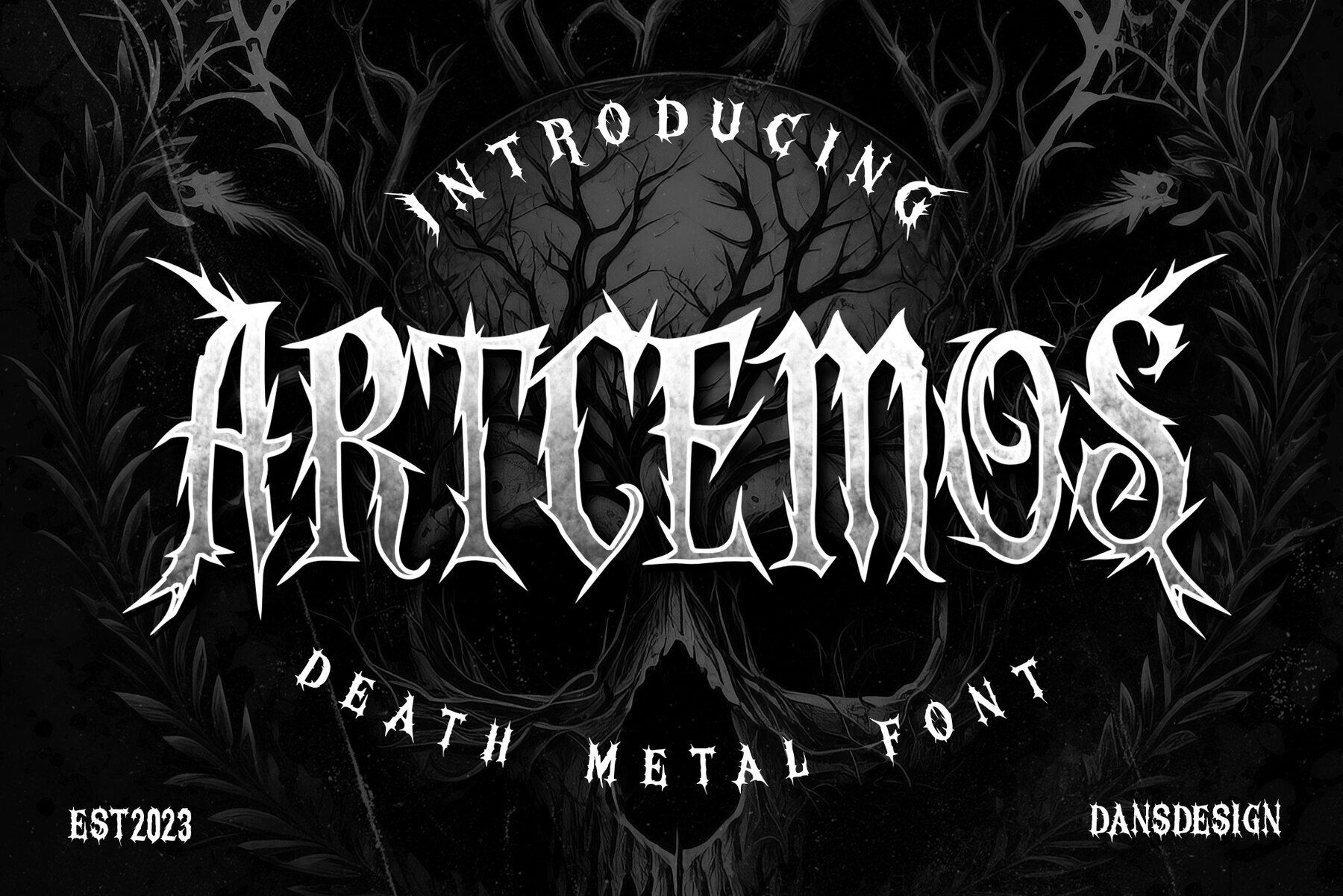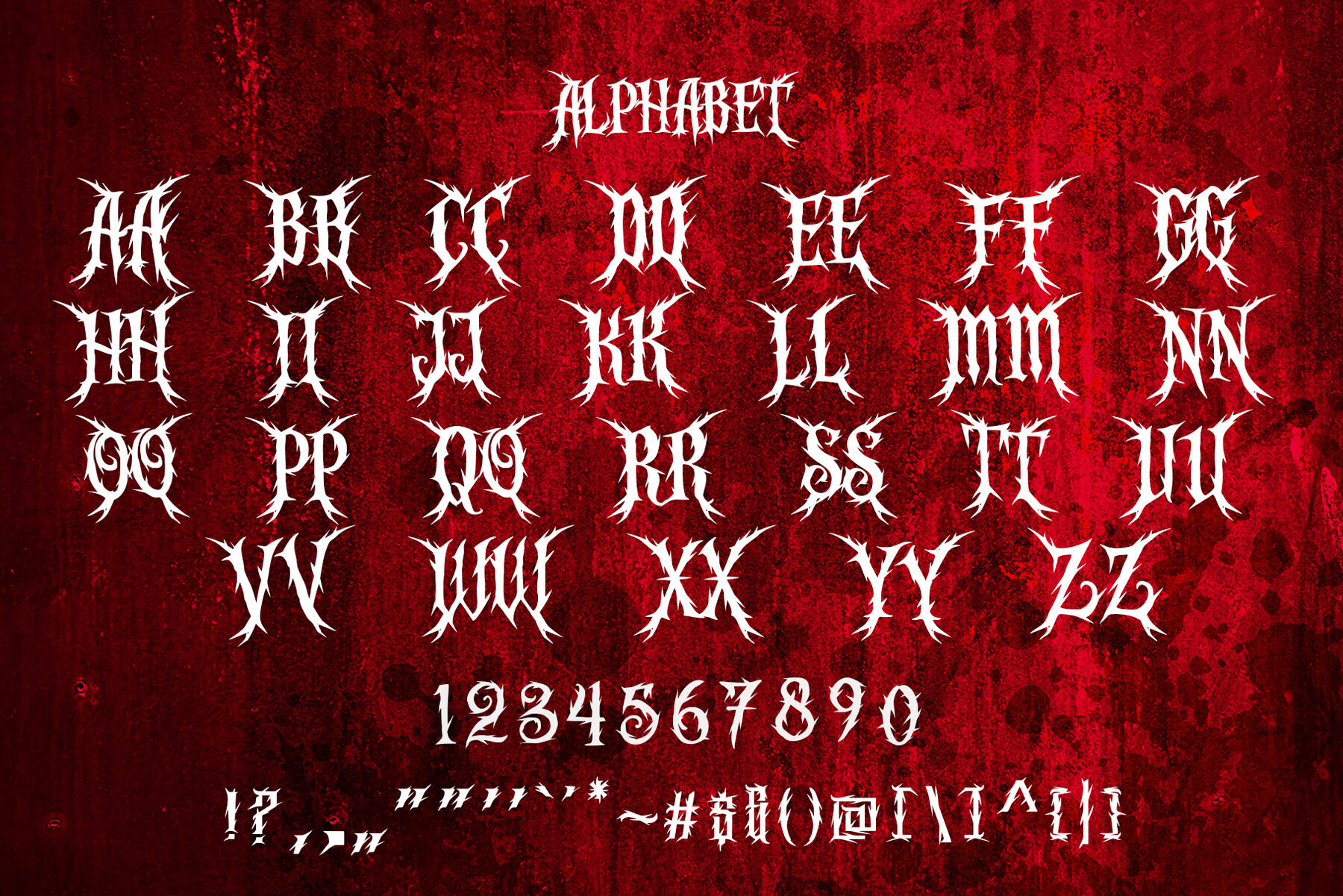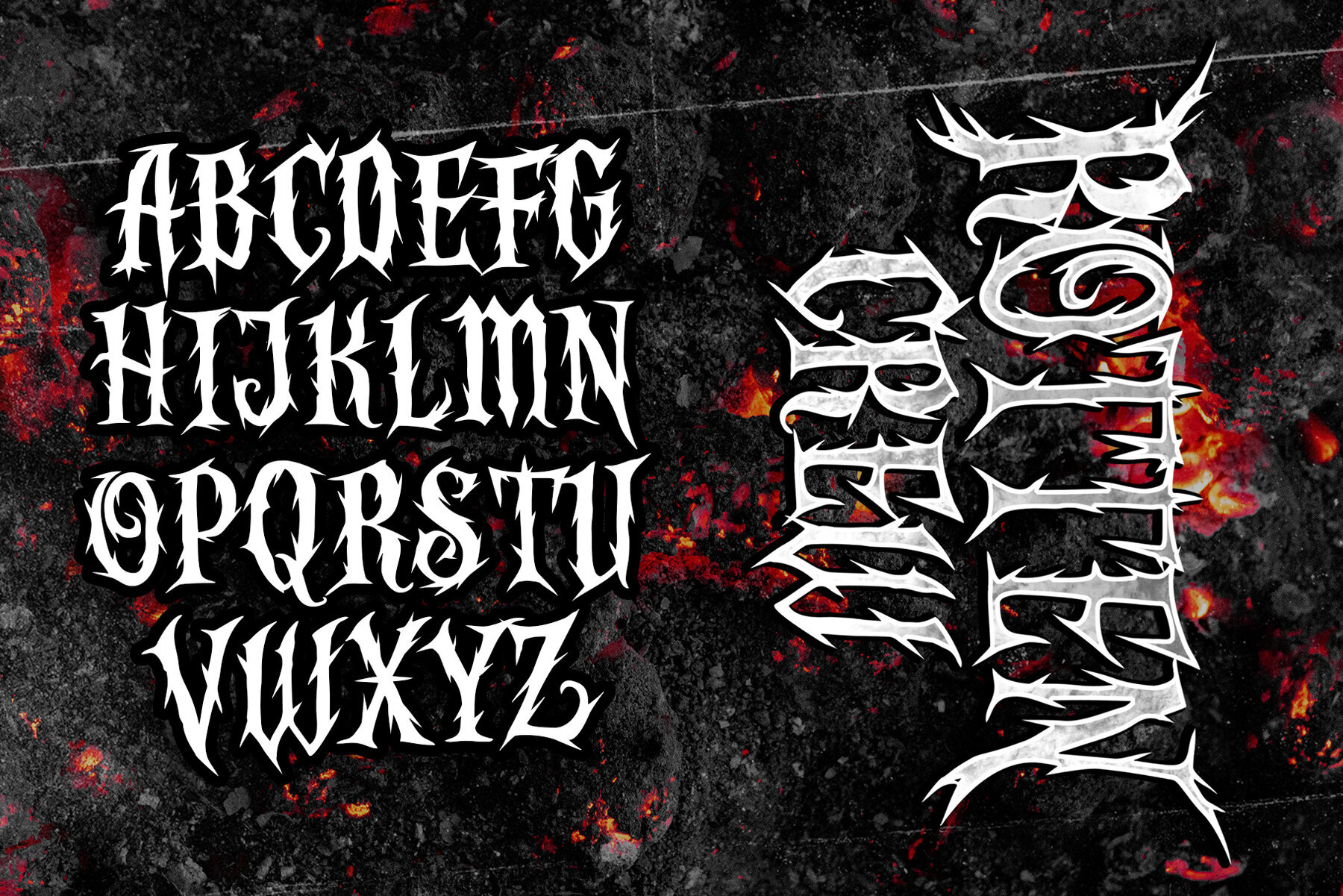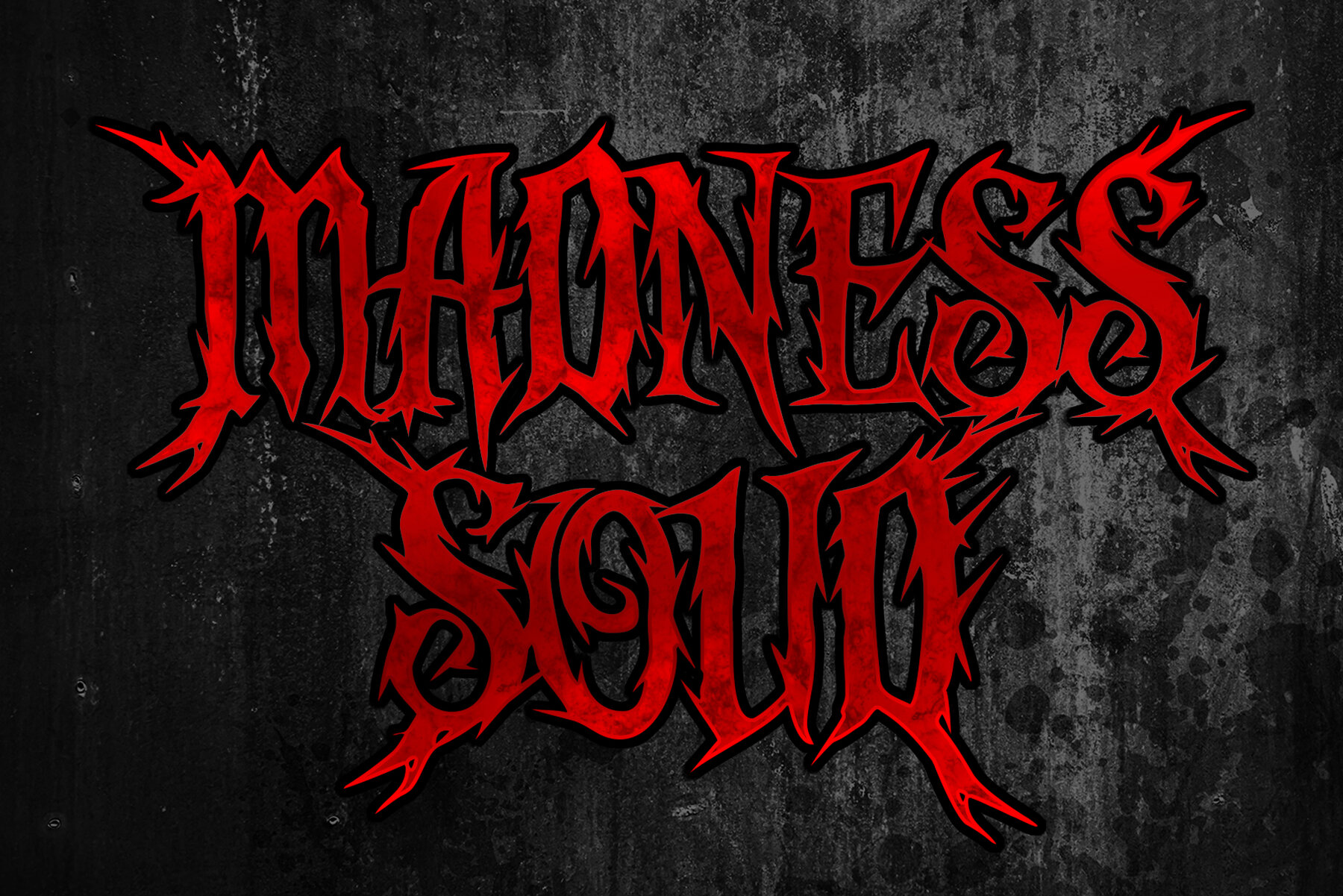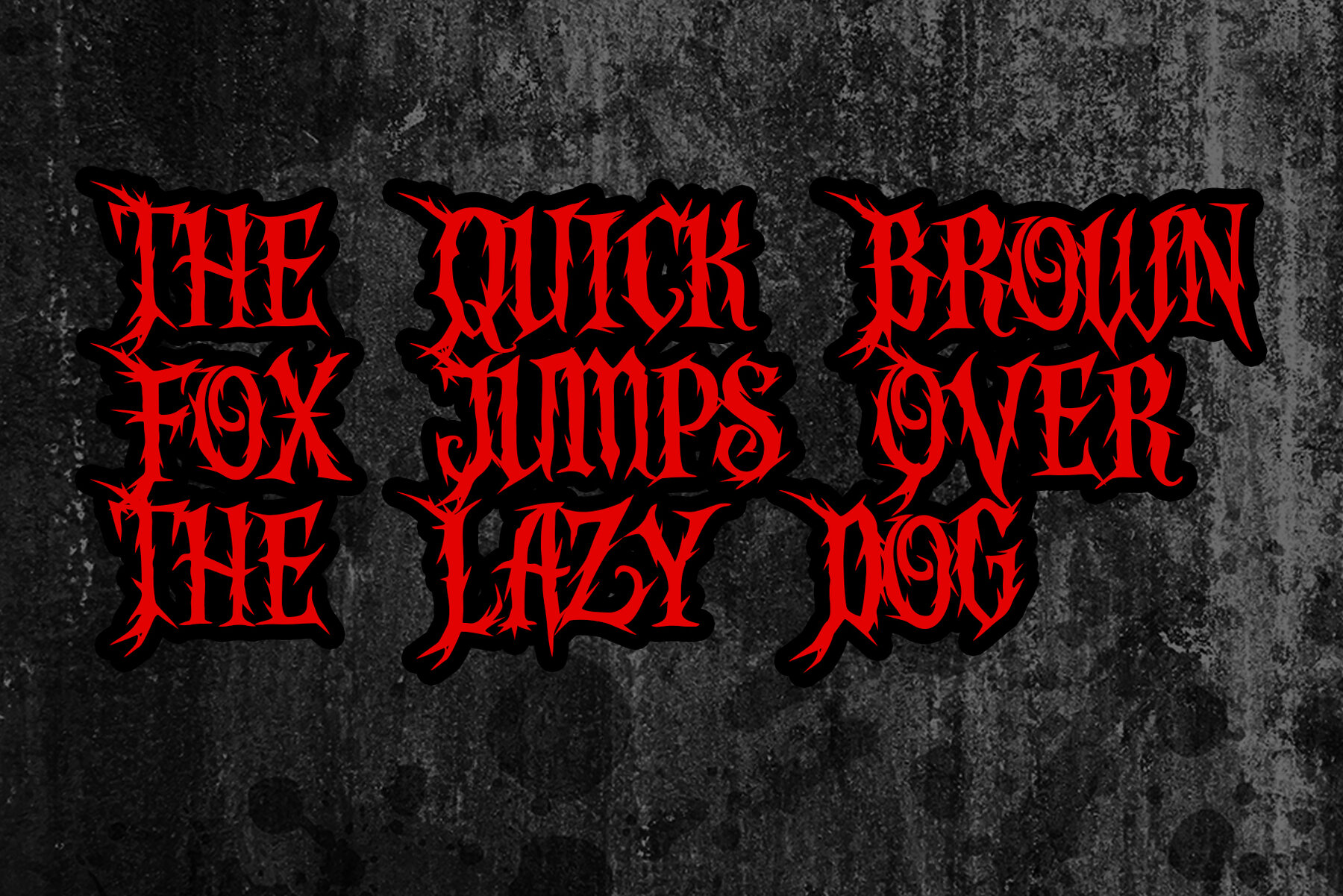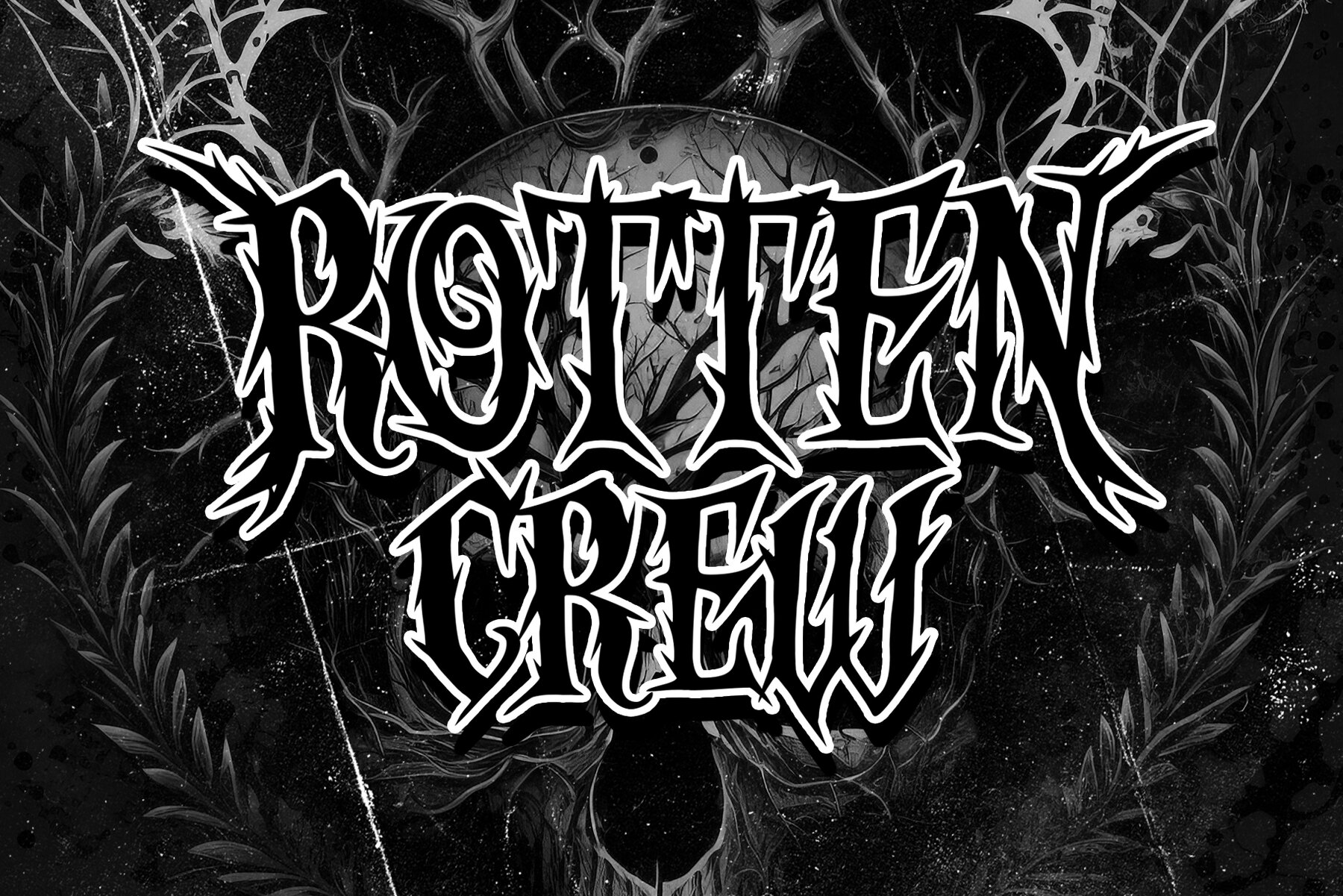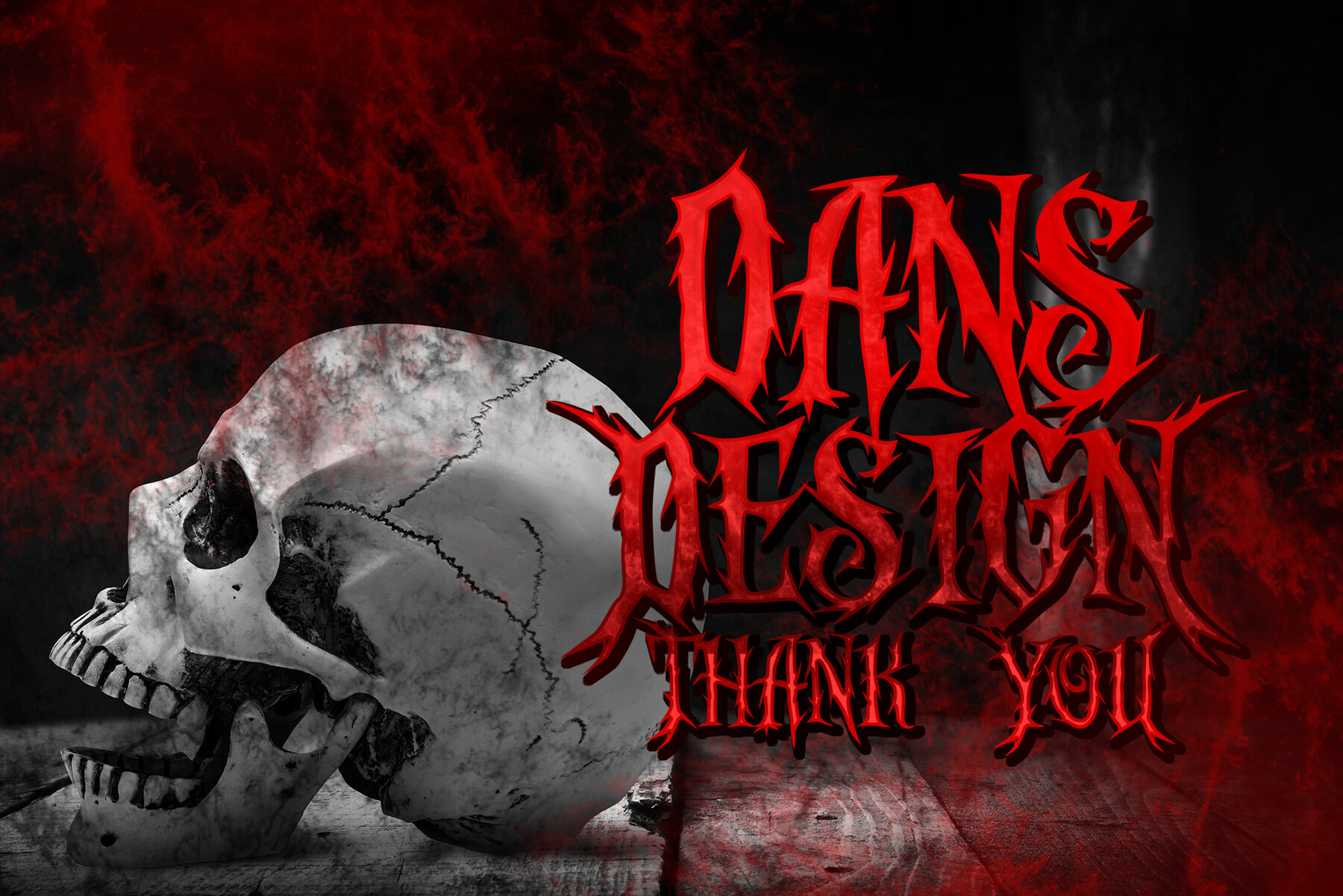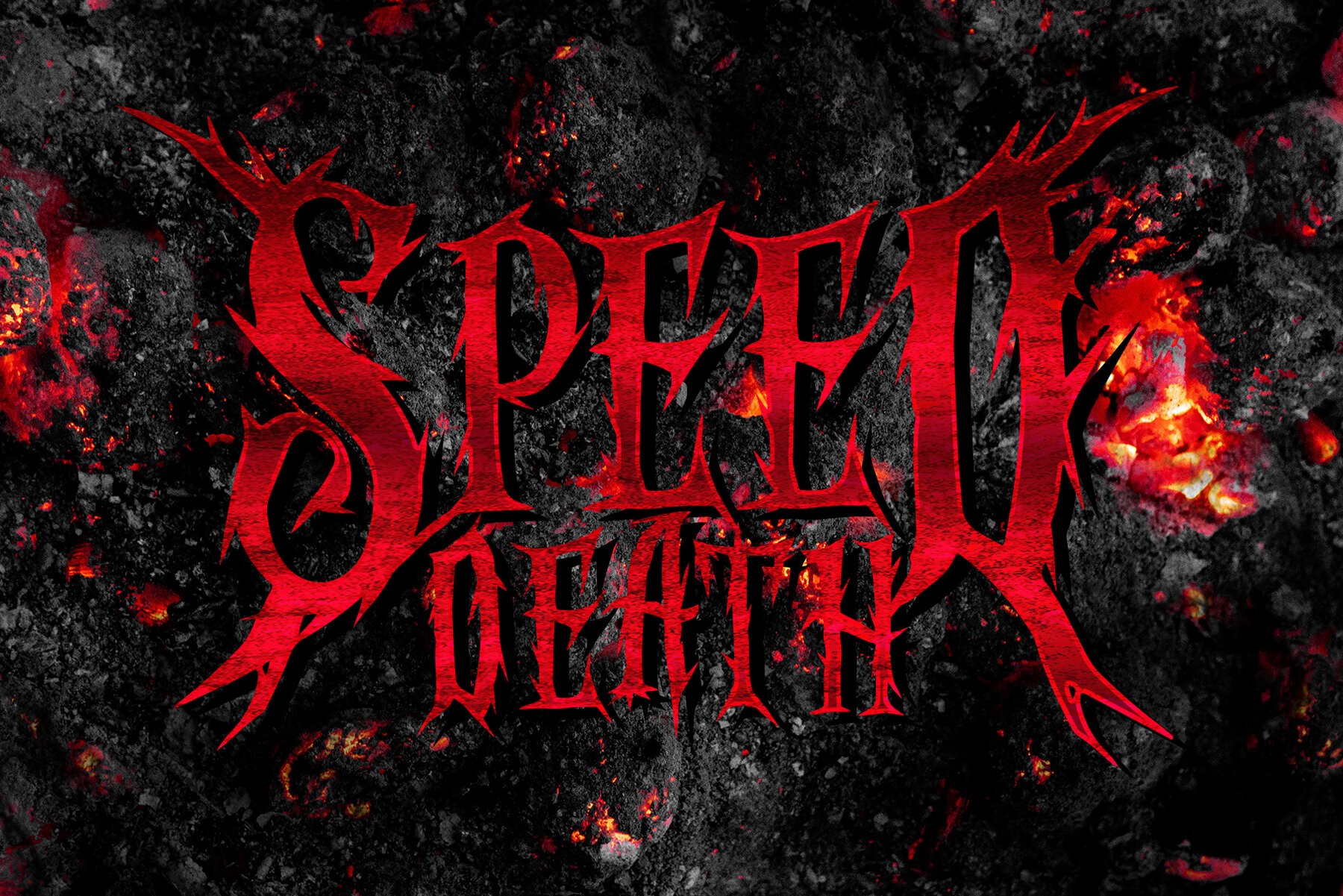
Artcemos Font
Artcemos Regular
Artcemos Horror Metal Font, crafted by Dandesign Studio, is a striking typeface that channels the essence of gothic horror and heavy metal. Its bold, intricate design makes it an exceptional choice for creating a dark and commanding presence in your projects. This font excels in applications such as retro-urban artwork, tattoo branding, band logos, and vintage posters. Unleash its dynamic appeal in merchandise and other ventures seeking a robust aesthetic.Artcemos Horror Metal Font